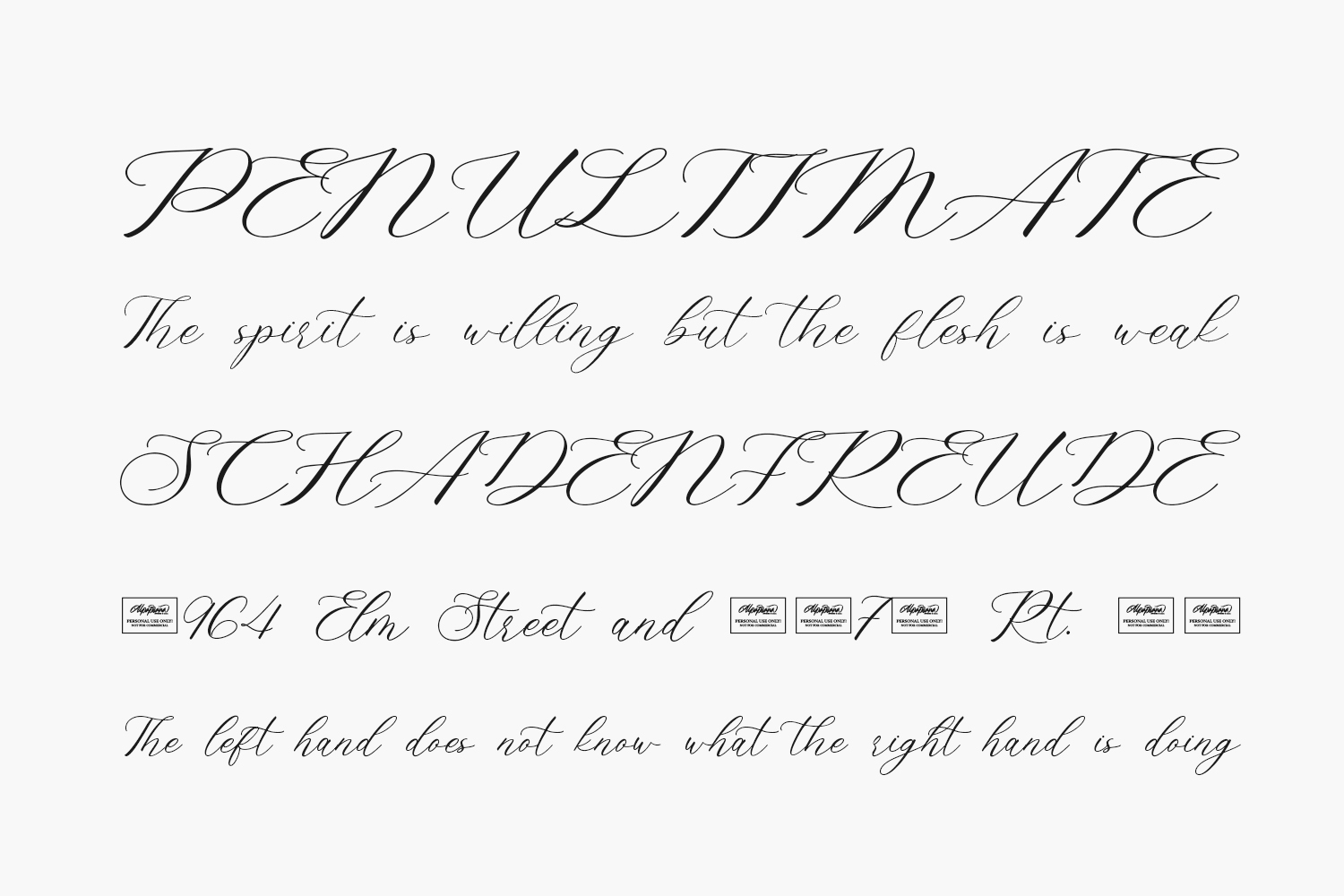
Giordan Free Font is a thin lettered, delicate and cursive script font. It looks lovely on wedding invitations, thank you cards, quotes, greeting cards, logos, business cards, and every other design which needs a customized touch. Giordan Free Font was designed by Alpaprana Studio is a demo and free for personal use only. Please purchase the full version for commercial use.